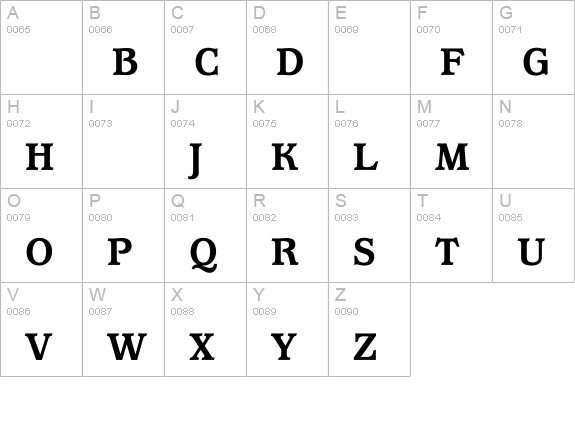
WaverlyExtraBold Font Details
Introducing WaverlyExtraBold font, a modern and eye-catching typeface that commands attention with its bold and confident presence. This meticulously designed font exudes a sense of strength and power, making it perfect for headlines, logos, and any design project that requires a strong and impactful visual statement. WaverlyExtraBold showcases a unique blend of sharp edges and smooth curves, creating a harmonious balance that captivates the viewer's gaze. Its thick and bold strokes demand attention while maintaining legibility, ensuring that your message is delivered with utmost clarity and impact. This versatile font is suitable for a wide range of design applications, from print materials such as posters and brochures, to digital media including websites and social media graphics. Its bold and commanding nature makes it a great choice for branding projects, giving your business a distinct and memorable visual identity. But what sets WaverlyExtraBold font apart from the rest is that it is not only visually stunning, but also freely available to download. That's right, you can enjoy the power and impact of this remarkable font without spending a dime. Simply head over to FontsMarket.com and discover the world of possibilities that WaverlyExtraBold font can offer to your design projects. So why settle for ordinary when you can elevate your designs to extraordinary with WaverlyExtraBold font? Download it now and unleash the full potential of your creativity.